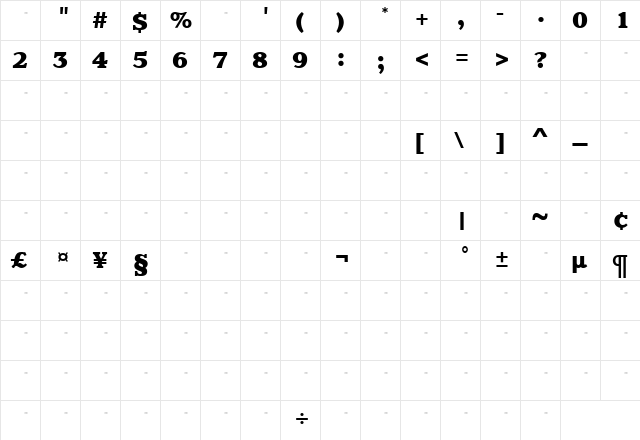
ClaremontExBoldTab Roman
Design Context for ClaremontExBoldTab Typeface
ClaremontExBoldTab is a composed and adaptable typeface that performs quietly and consistently across a wide range of design contexts. The heavy weight commands attention and anchors typographic hierarchies.